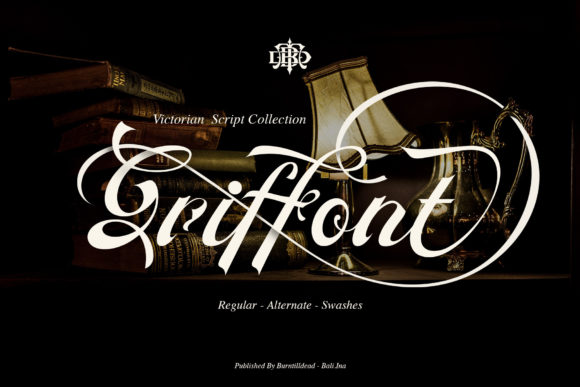
Griffont Font
Griffont is a victorian styled, handwritten font. Whether you’re looking for fonts for Instagram or calligraphy scripts for DIY projects, this font will turn any creative idea into a true piece of art!